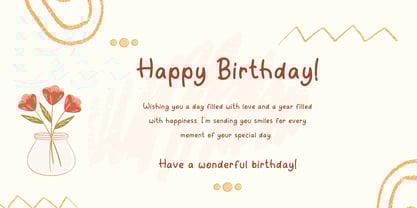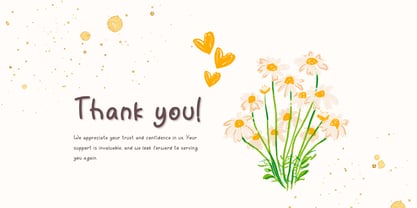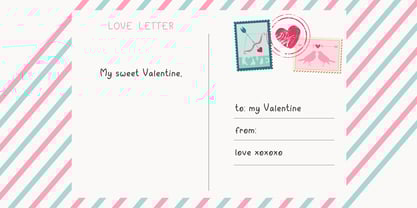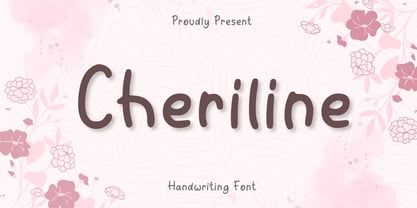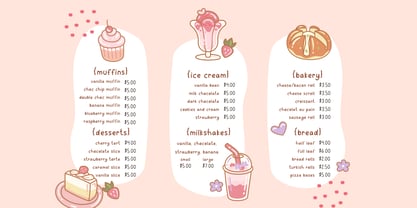
Cheriline
by Aisyah
The Cheriline Font Family was designed by Nur Aiysah Amalia and published by Aisyah. Cheriline contains 1 styles. More about this family
Introducing Cheriline, a stylish handwriting font that exudes a cool, casual elegance. It's a playful amalgamation of sweet and charming aesthetics, offering a visually delightful and endearing appeal. Ideal for adding that extra pinch of cuteness and quirkiness to your creative designs. Cheriline, a delightful fusion of style and sweetness, ready to leave its enchanting typographic imprint.
Designers: Nur Aiysah Amalia
Foundry: Aisyah